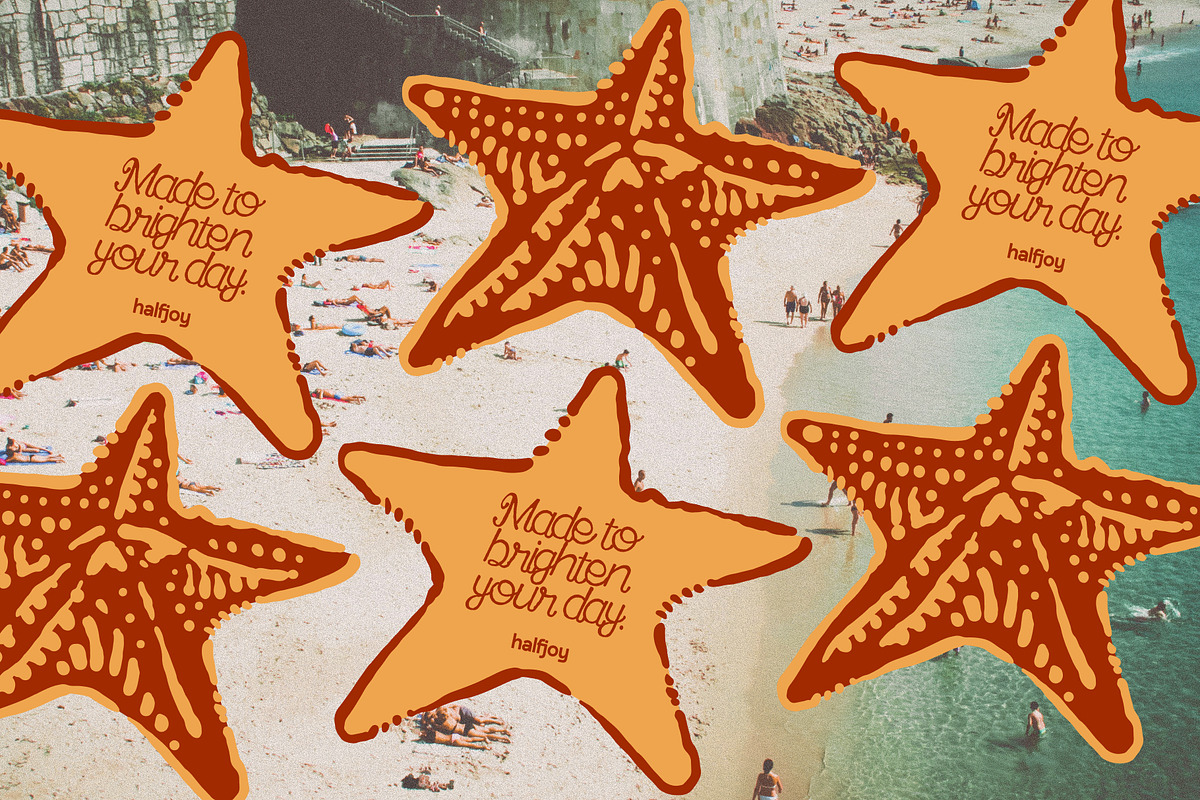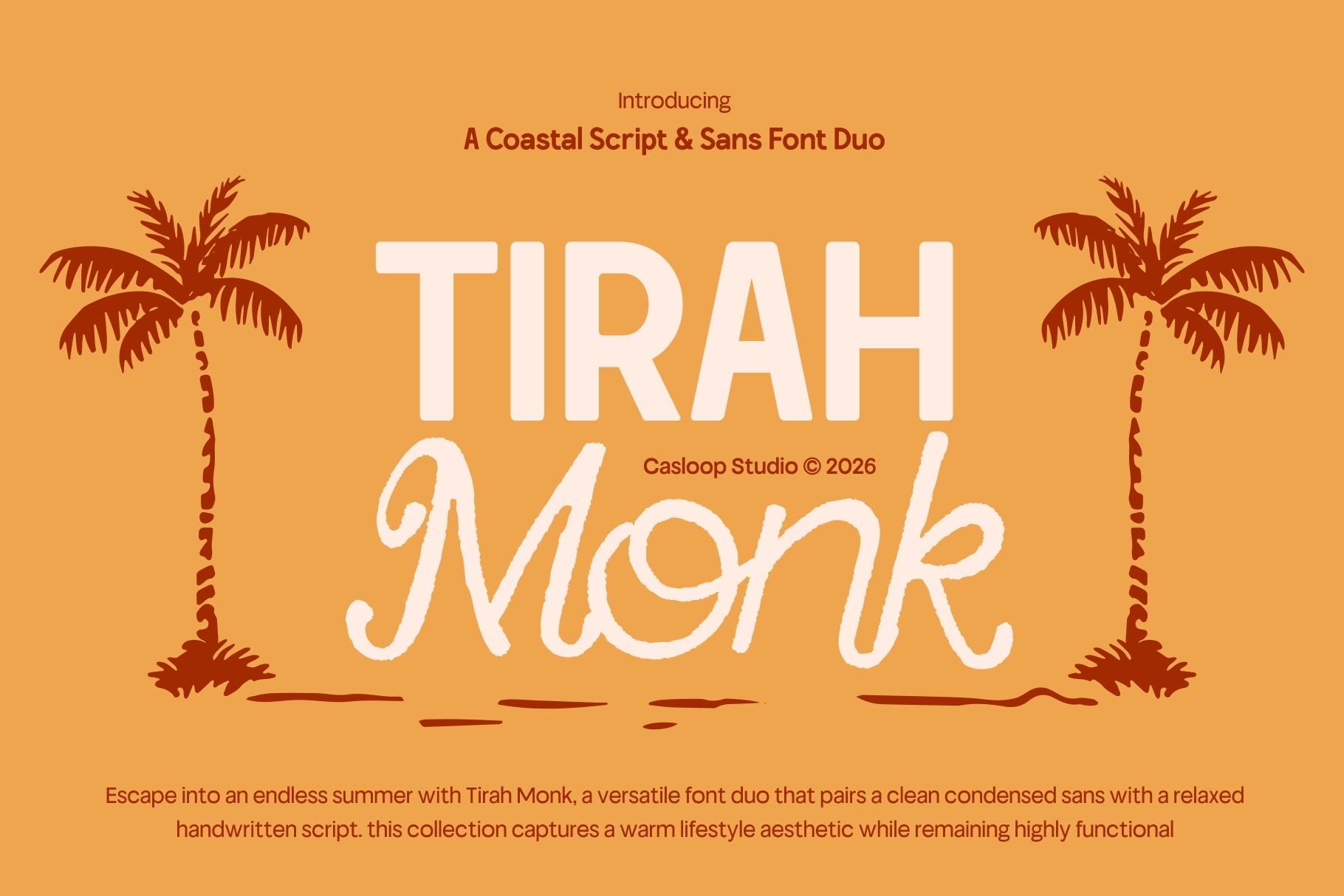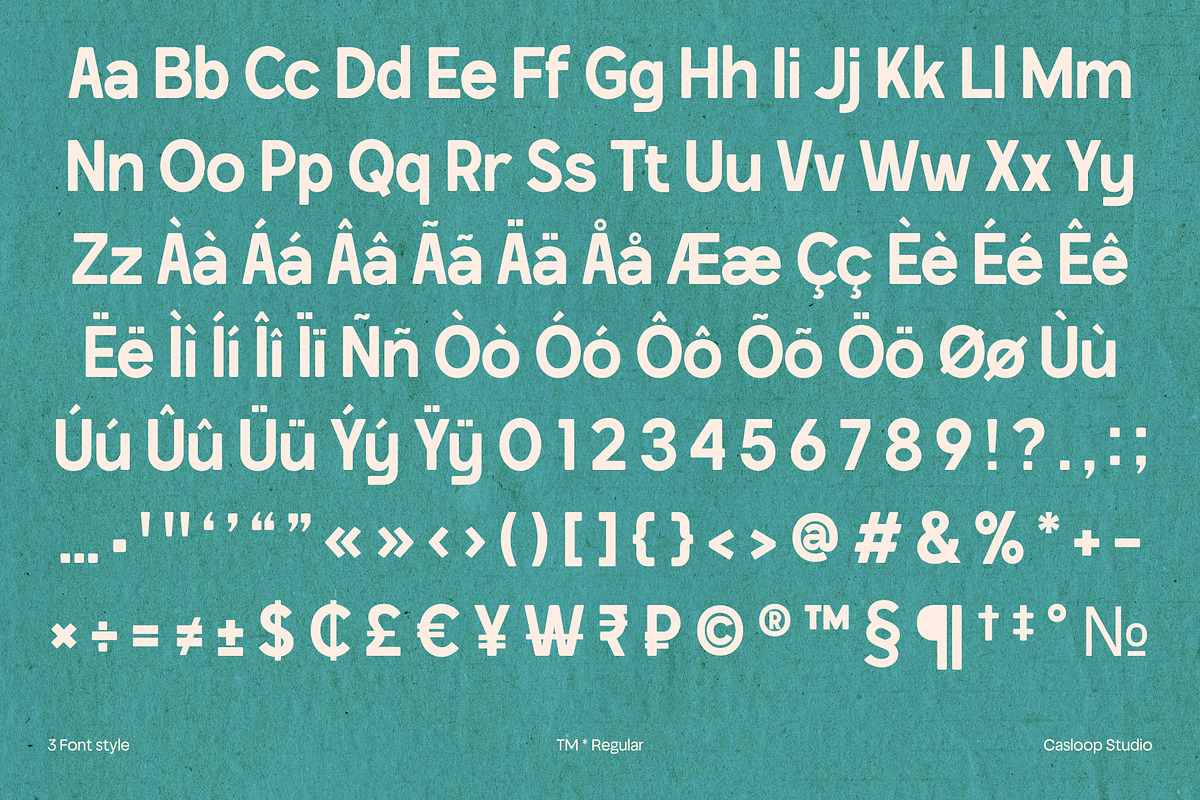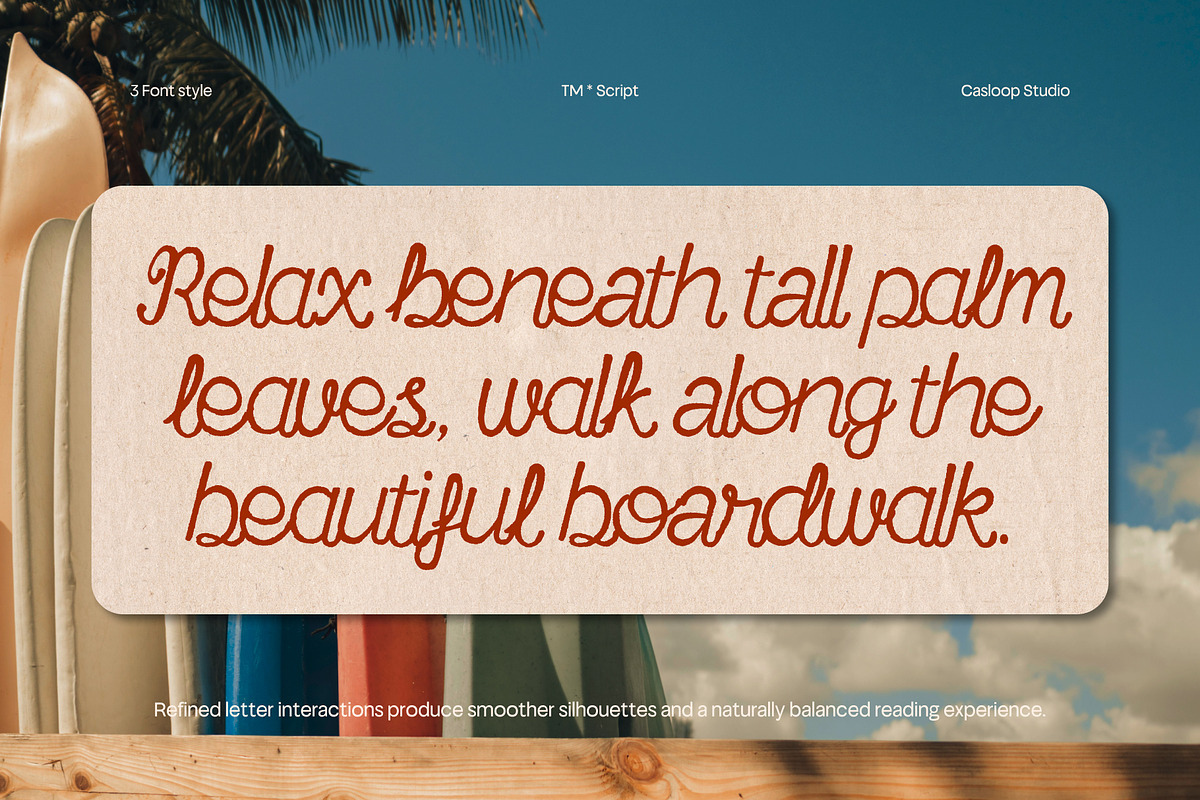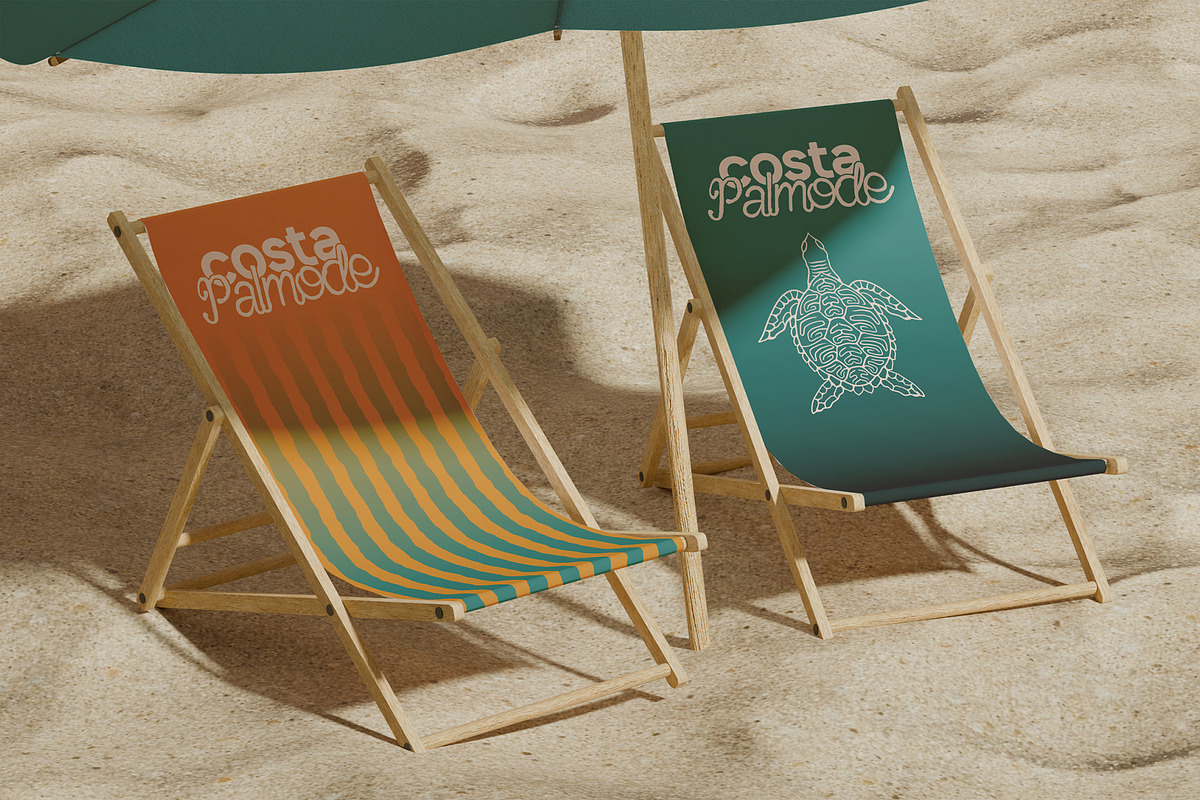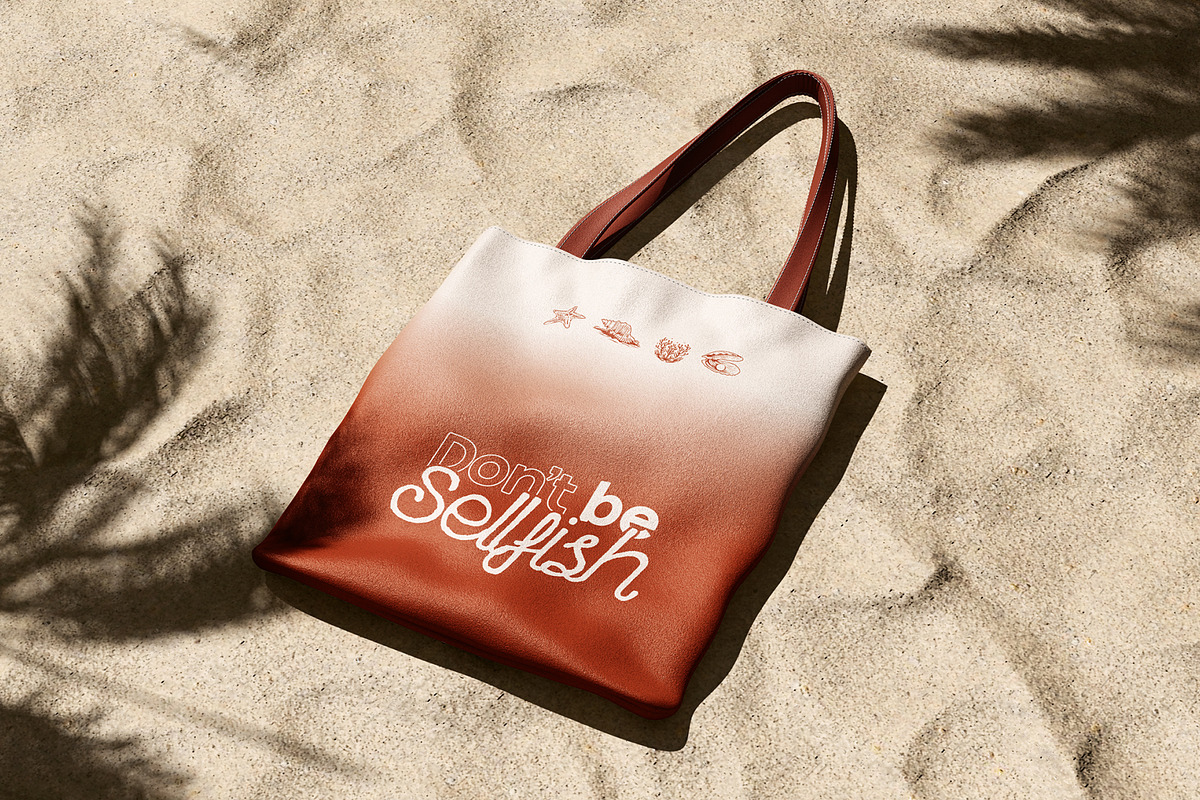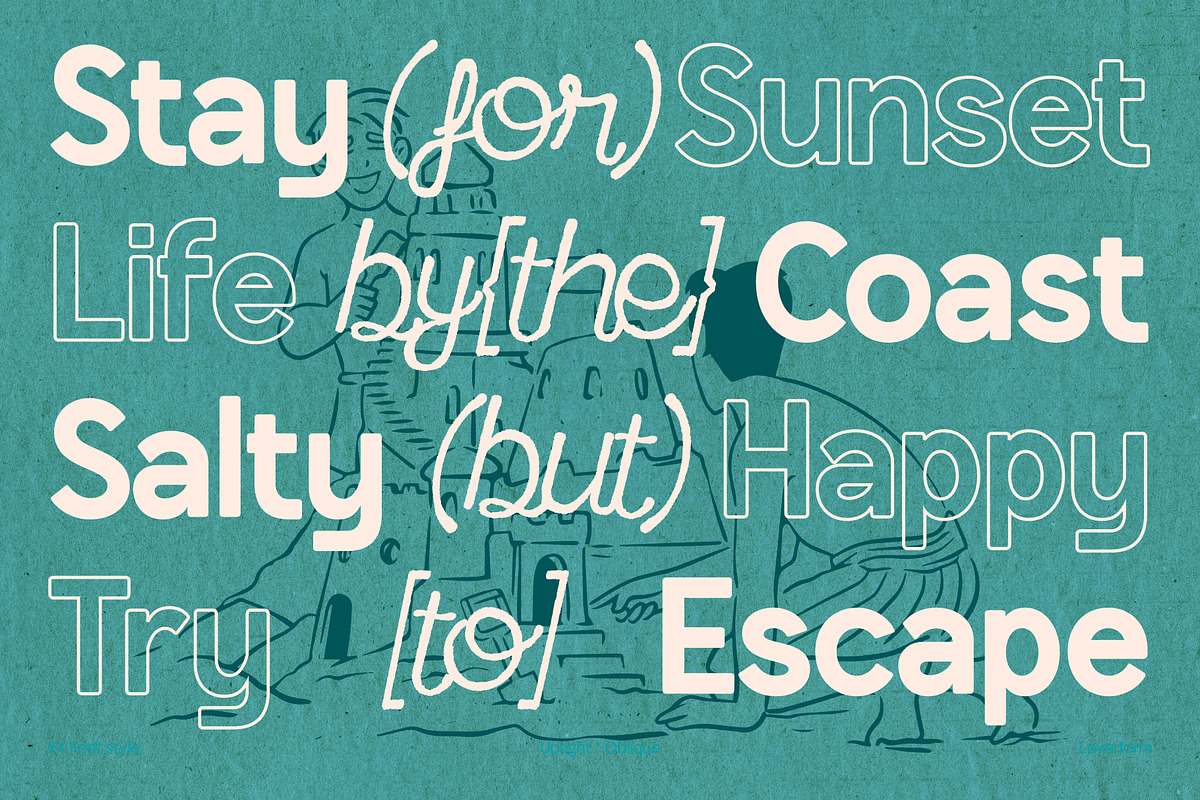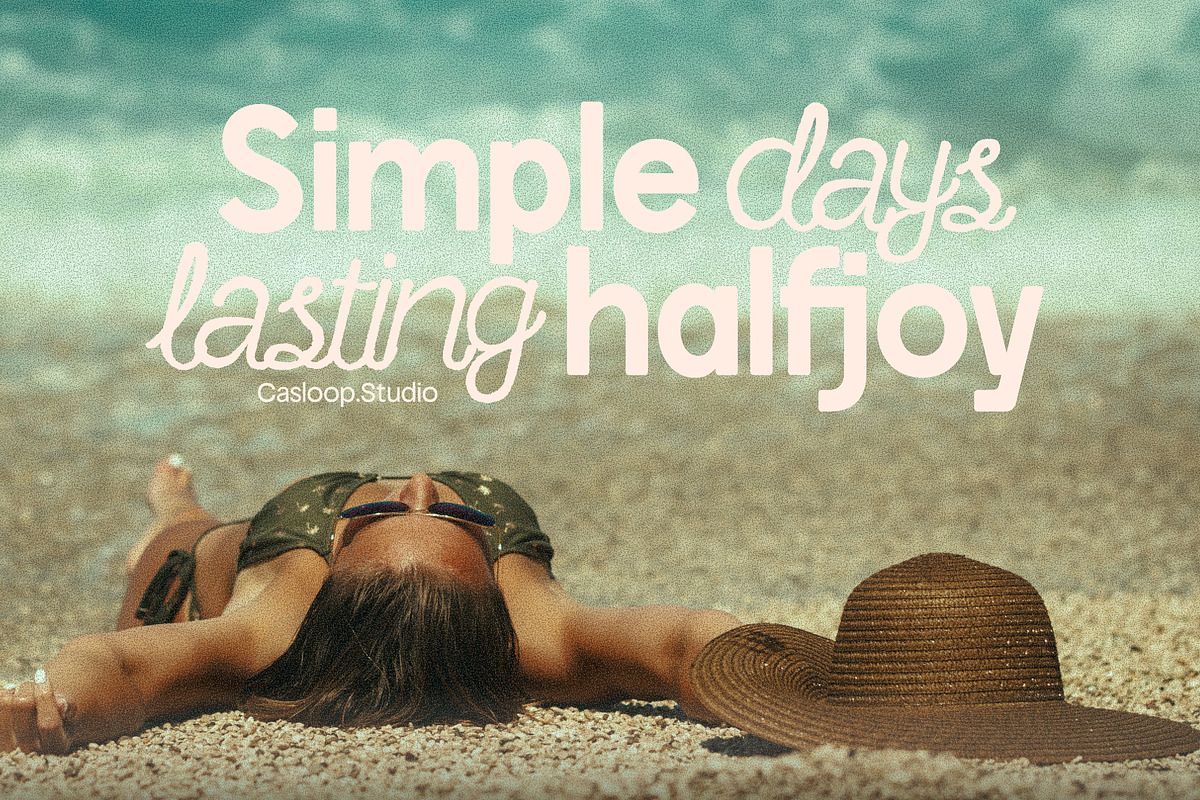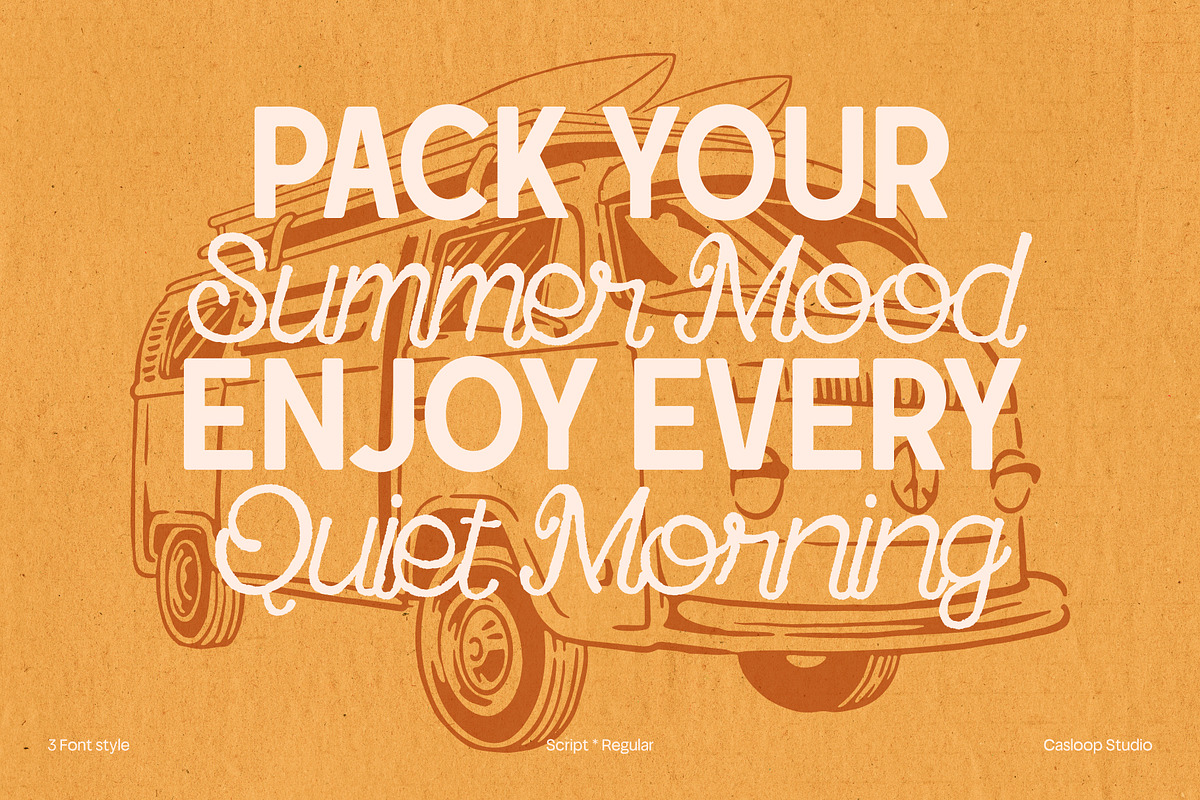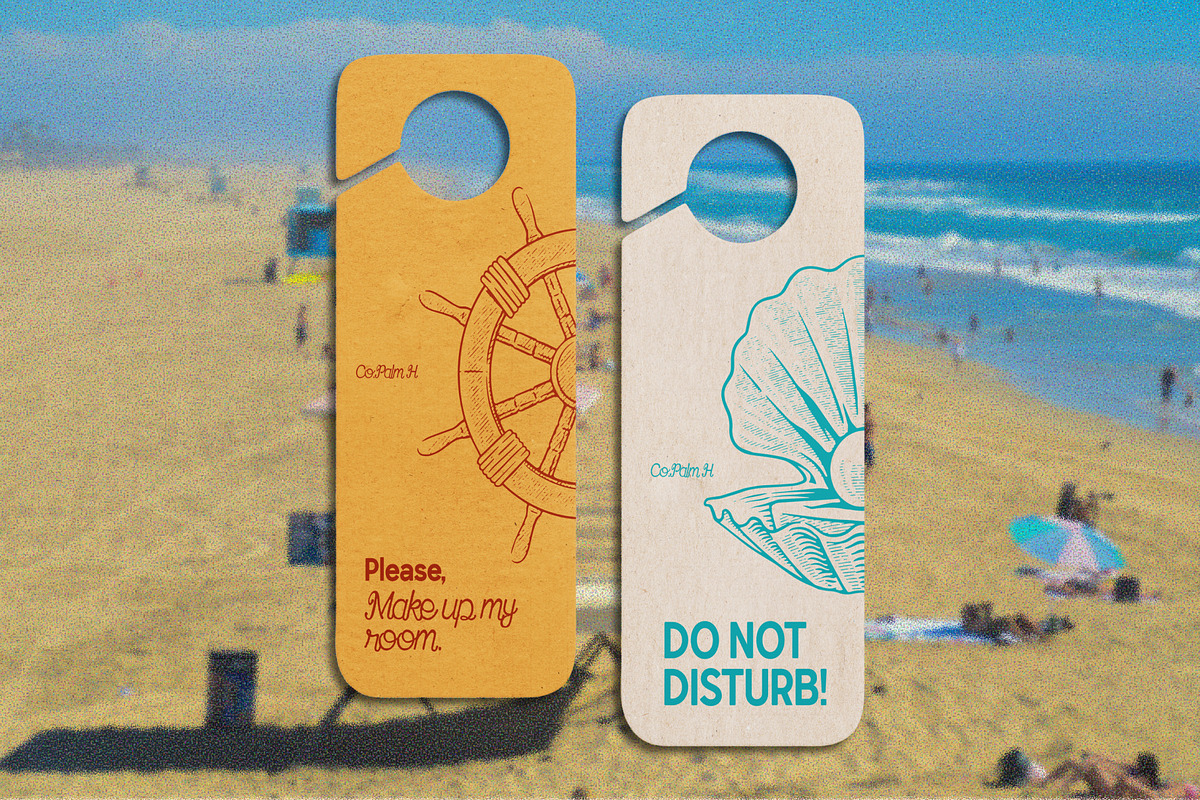
Tirah Monk – Script & Sans Font Duo
Tirah Monk is a versatile script and sans font duo designed to bring balance between contemporary structure and natural expression. The Sans style is defined by its signature characters A, B, R, S, and C, featuring balanced condensed proportions, softly rounded corners, and clean geometric forms that deliver exceptional clarity for headlines and body text alike. Complementing it, the Script style showcases M, K, Y, H, and T with flowing strokes and a warm handwritten rhythm that adds personality without sacrificing readability. Together, these styles create a cohesive typographic system that effortlessly combines modern precision with organic charm, making Tirah Monk ideal for summer campaigns, cafés, food and beverage branding, vacation themes, packaging, editorials, and lifestyle identities. Recommended pairing with Manrope, Nunito Sans, DM Sans, Avenir, Helvetica Neue, Gill Sans
Uppercase & Lowercase,
Numbers and punctuation,
Ligatures & Stylistic Alternates Characters
Multilingulal Support :
Bosnian, Catalan, Czech, Danish, German, English, Spanish, Estonian, Finnish, French, Irish, Croatian, Hungarian, Icelandic, Italian, Lithuanian, Latvian, Dutch, Norwegian, Polish, Portuguese, Romanian, Slovak, Slovenian, Albanian, Swedish, Turkish.
Tirah Monk Regular
Tirah Monk Inline
Tirah Monk Script